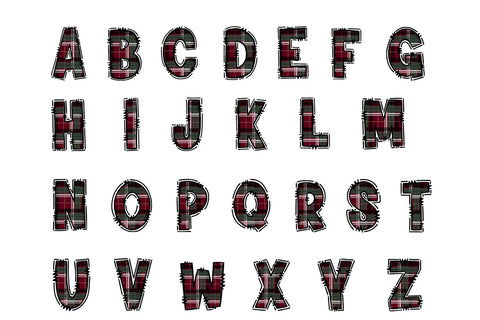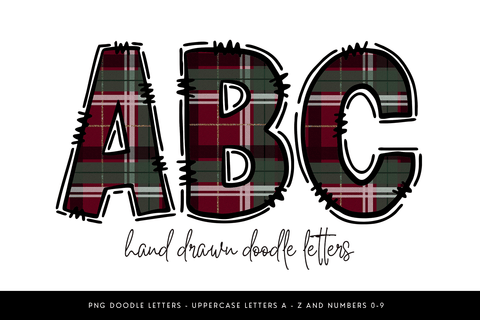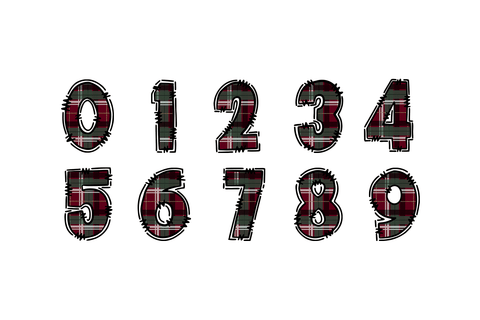
Plaid Christmas Alpha PNG, Festive Alphabet
Create something truly cozy and unique with this festive digital alpha set! This instant download includes all uppercase letters A-Z and numbers 0-9, provided as high-quality PNG files with transparent backgrounds for easy use. Each character features a unique, hand-drawn doodle outline filled with a classic maroon and dark green plaid pattern, perfect for adding a touch of rustic holiday charm to your creations. Use these files for sublimation printing on t-shirts, mugs, and blankets, or for creating custom holiday gifts and timeless farmhouse-style decor.
✦ Uppercase letters A-Z
✦ Numbers 0 - 9